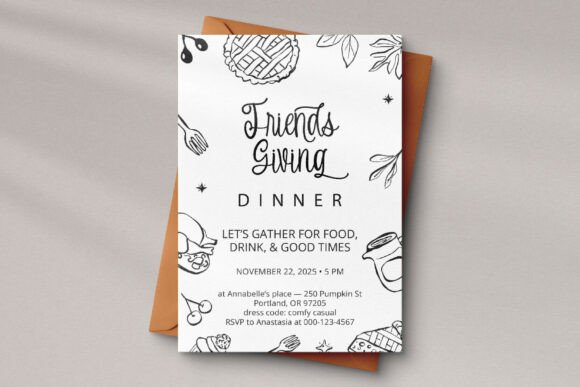
Whimsy Magic Font
Whimsy Magic is a romantic, whimsical, elegant script that sprinkles soft curls and bouncy strokes onto wedding suites, signage, gifts, and cozy branding.